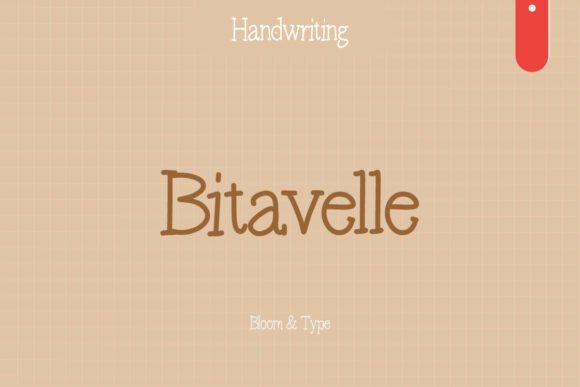
The Designer’s Delight: Bitavelle Font
Have you ever been in the middle of a design project, and suddenly, you’re stuck on finding the perfect font? I recall a particularly frustrating experience while working on a branding project for a cozy coffee shop. My client wanted a font that exuded warmth and friendliness, but everything I tried seemed either too formal or too quirky. That’s when I stumbled upon Bitavelle, a soft handwritten font that instantly brought a sense of calm and personality to my designs.
First Impressions: A Personal Review
Bitavelle is more than just a font; it’s a design element that can elevate your project from ordinary to charming. Here’s what I love about it:
• ✨ Warm and inviting: Bitavelle’s gentle curves and natural flow make it feel like real handwriting.
• ✅ Easily readable: Despite its handcrafted feel, Bitavelle is surprisingly clear and easy to read, even at smaller sizes.
• ✨ Versatile: From quotes and branding to packaging and social media, Bitavelle adapts seamlessly to various design needs.
Of course, no font is perfect, and Bitavelle has a few minor quirks:
• 🤔 Limited formal applications: Bitavelle’s casual nature makes it less suitable for projects requiring a formal or corporate tone.
• ⚠️ Glyph variety: While Bitavelle offers a good range of glyphs, it might not have every special character you need for specific projects.
3. Experiment with Text Styles to make the most of Bitavelle’s OpenType features, such as ligatures and stylistic alternates.
Exploring Alternatives: Similar Fonts to Bitavelle
The Story Behind Bitavelle
Bitavelle was crafted with the intention of bringing a piece of human warmth to digital and print designs. Inspired by the gentle strokes of handwriting, its creator aimed to produce a font that feels approachable and personal. While the exact details of its creation are not widely known, it’s clear that Bitavelle was designed to make your designs feel more like they were written with love.
Q: Is Bitavelle suitable for body text?
A: While Bitavelle is primarily designed for display purposes, its readability makes it usable for short paragraphs. However, for extensive body text, a more traditional font might be more appropriate.
Q: Does Bitavelle support multiple languages?
A: Bitavelle supports a range of languages, but it’s always best to check the specific language support and available glyphs to ensure it meets your project’s needs.
Q: How does Bitavelle compare to other handwritten fonts?
A: Bitavelle stands out for its balance of readability and personality. It offers a natural look without being too casual, making it suitable for a wide range of projects.